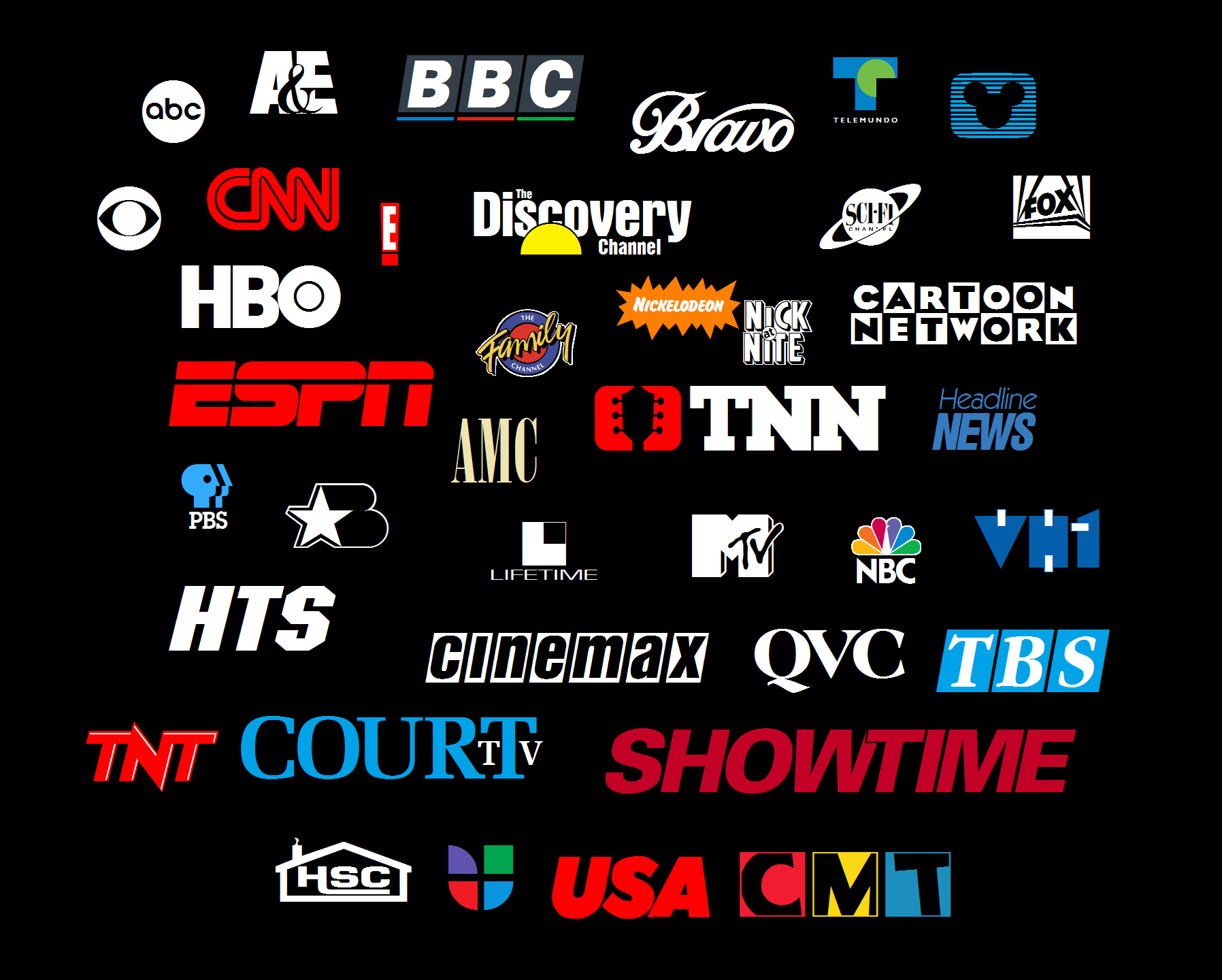
and also the TBS logo with SuperStation from 1986 and 1989
I know. I assume this font was probably made back in the 1990s.
P.S.: In addition to the logos in this picture, the font also includes CNBC (Γ§) and the logos for local stations in the Washington, DC/Baltimore, MD area, some of which also have variants within the font.